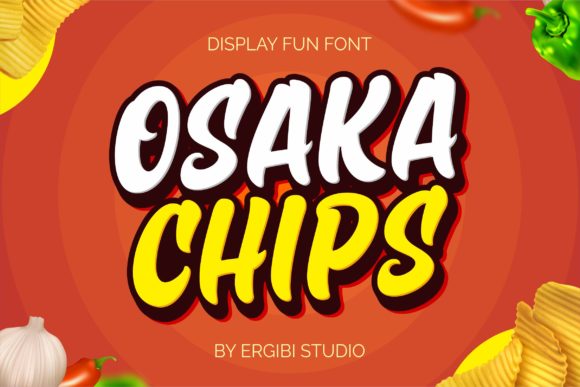
Dive into the realm of Osaka Chips Font, a remarkable display font that exudes charm and playfulness. Crafted by the skilled hands at ergibi studio, this font is an artistic masterpiece designed to captivate your audience and leave a lasting impression.
Embark on a delightful journey with Osaka Chips Font, a unique creation that dances with joy and exuberance. This uppercase font, adorned with captivating extrude effects, is a treasure trove of visual delight, ready to transform your designs into extraordinary works of art.
With Osaka Chips Font, the possibilities are endless. Unleash your creativity and explore a world of delightful applications. Create packaging that bursts with personality for your snack brand, or design irresistible quotes that spark laughter and joy. The possibilities are boundless, waiting for you to unleash your imagination.
Immerse yourself in the whimsical world of Osaka Chips Font, where every letter is a celebration of fun and lightheartedness. Its playful curves and energetic lines dance across the screen, captivating your audience and inviting them to join the party.
Don't settle for ordinary fonts that blend into the background. Dare to be different with Osaka Chips Font, a font that commands attention and makes a statement. Let your designs shine brighter than ever before, captivating your audience and leaving them wanting more.
Osaka Chips Font is your ticket to a world of unforgettable designs. Its versatility knows no bounds, making it the perfect choice for a diverse range of projects, from playful branding to eye-catching social media posts. Let your creativity soar and witness the transformation of your designs into works of art.